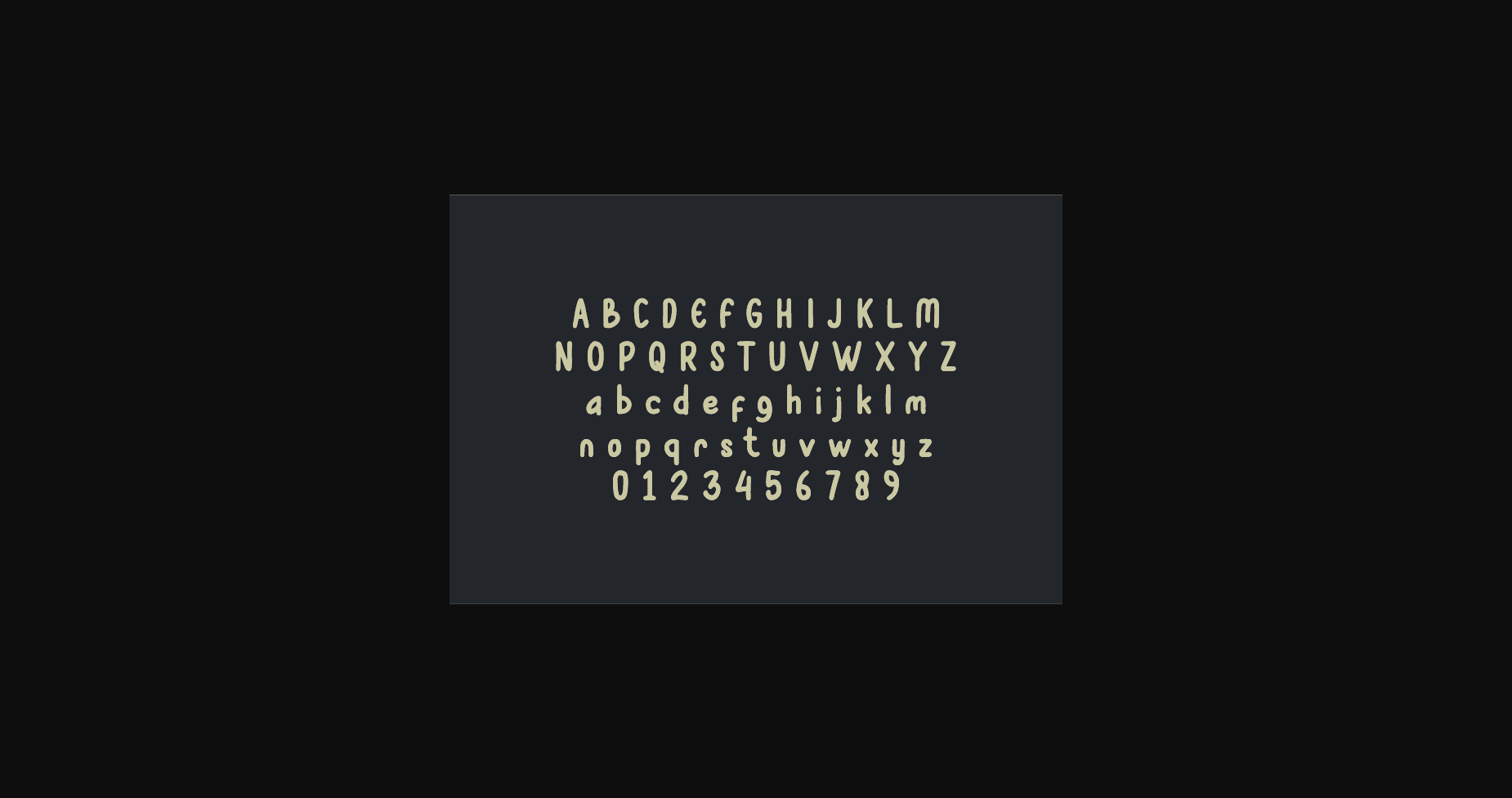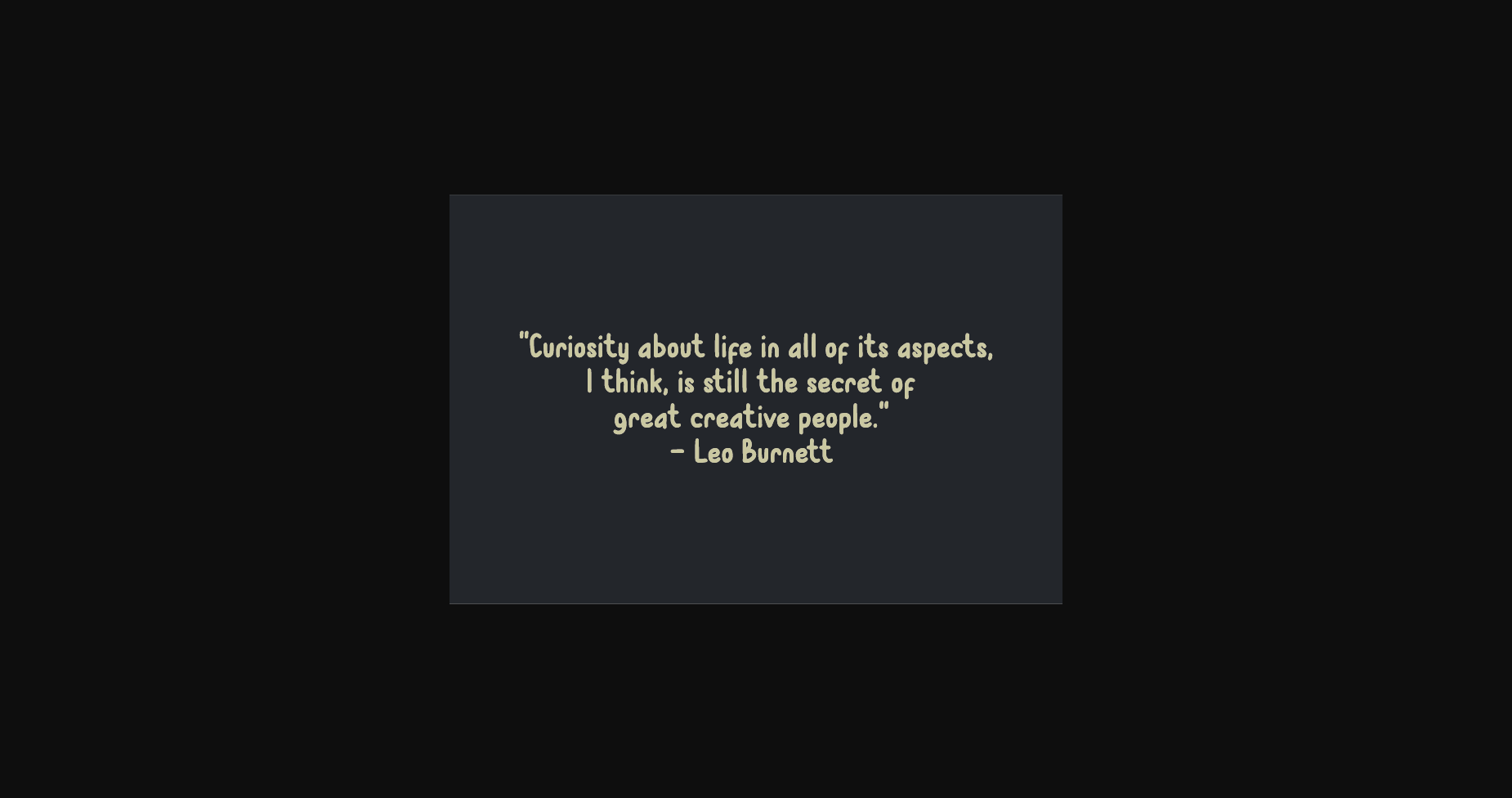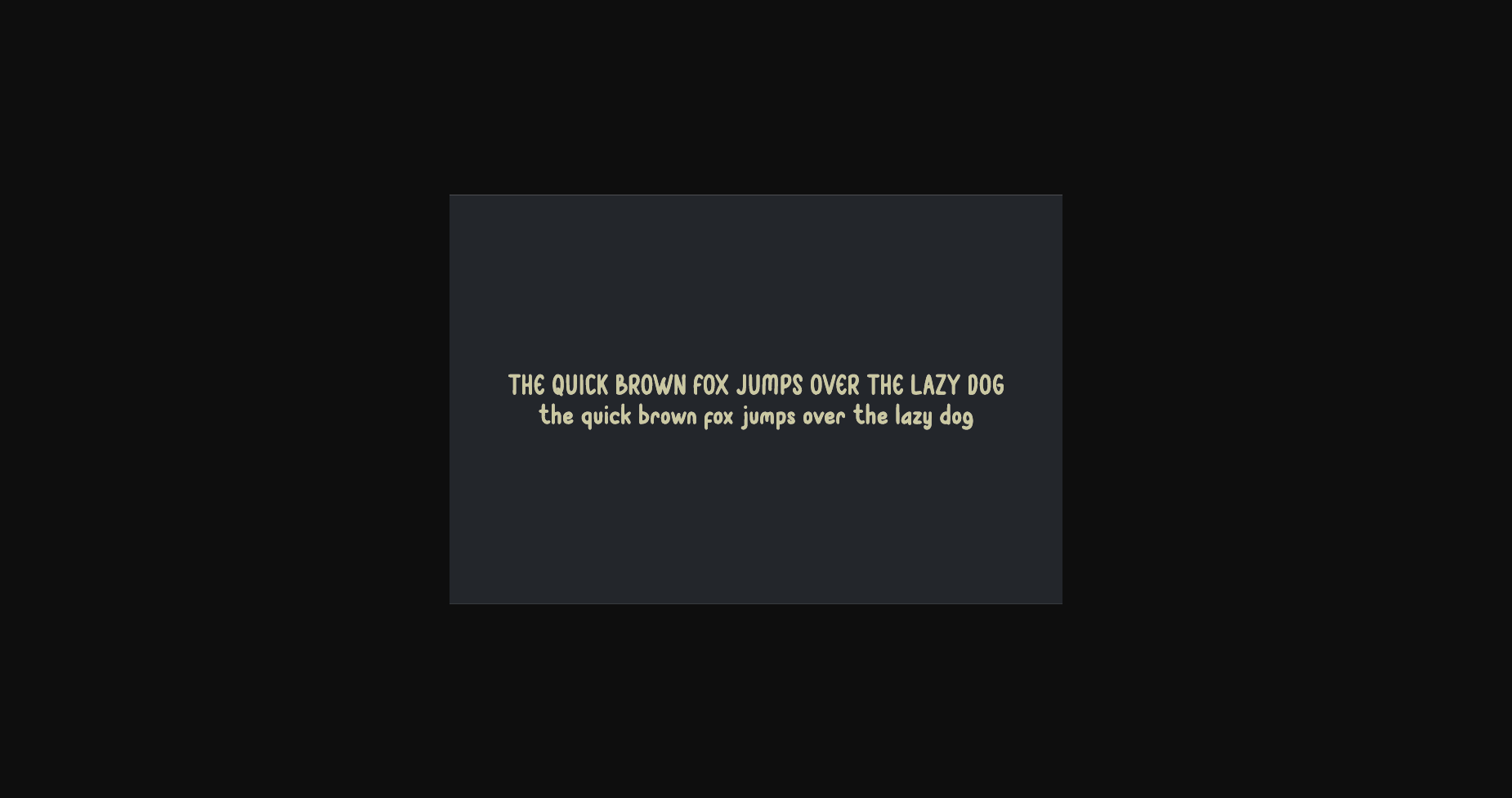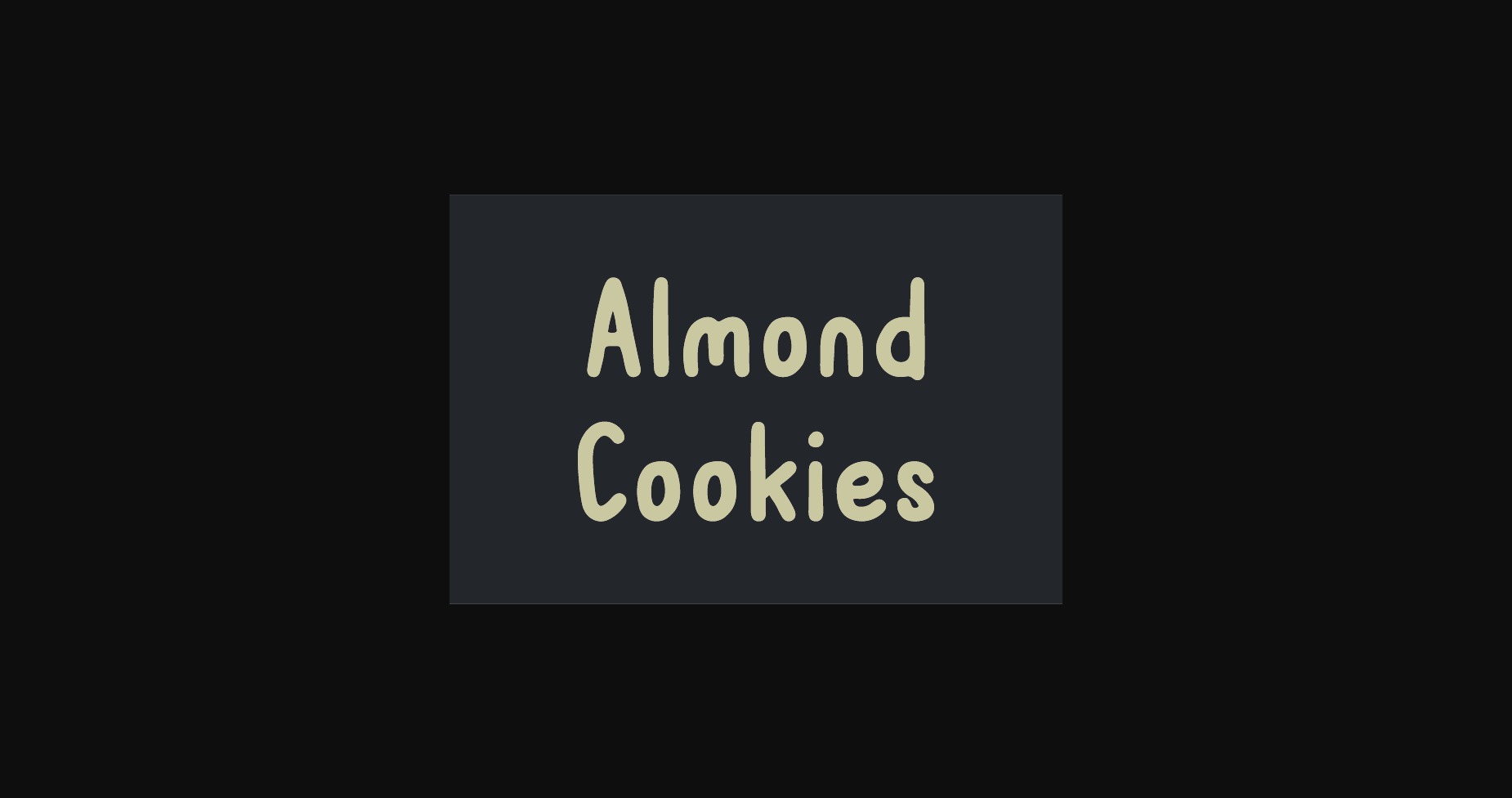
Almond Cookies Font
About Almond Cookies Font
Almond Cookies is a natural sans serif font made without changing a single node in each character’s indentation. This makes this font very interesting and unique. Perfect for quotes, notes, tees, and any product design.